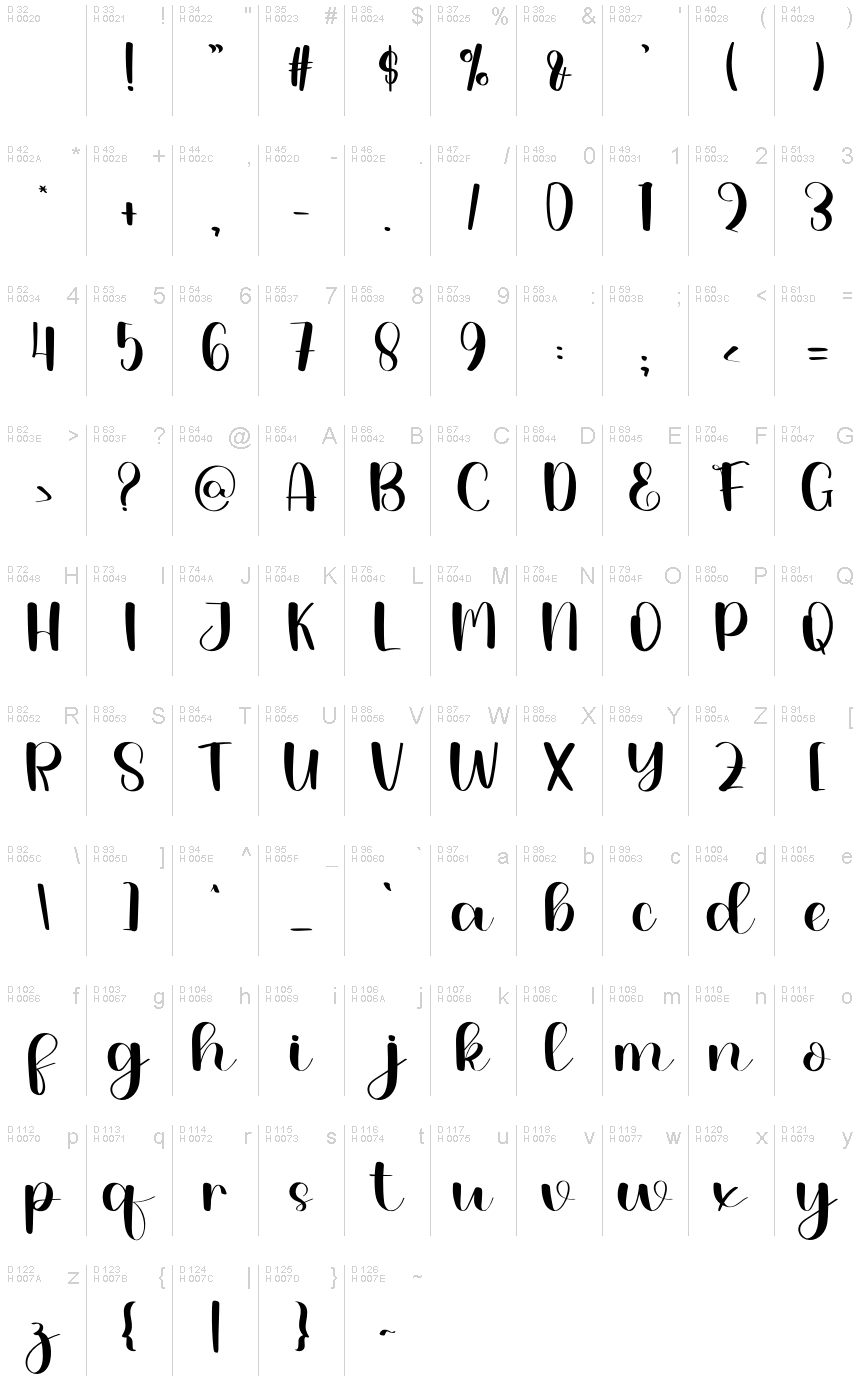
Thinker
Thinker is a smooth, brush-inspired font that exudes a sense of fluid elegance. Designed by PiPi Creative, this typeface seamlessly blends the spontaneity of handwritten strokes with a refined, polished appearance.
Its distinctive brushstrokes and organic contours lend a captivating, expressive quality, making Thinker an ideal choice for a wide range of design applications, from editorial layouts and packaging to branding and signage.
The font's versatility allows it to seamlessly complement both modern and vintage aesthetics, making it a valuable asset in the creative arsenal of designers seeking to infuse their projects with a touch of artistry and sophistication.